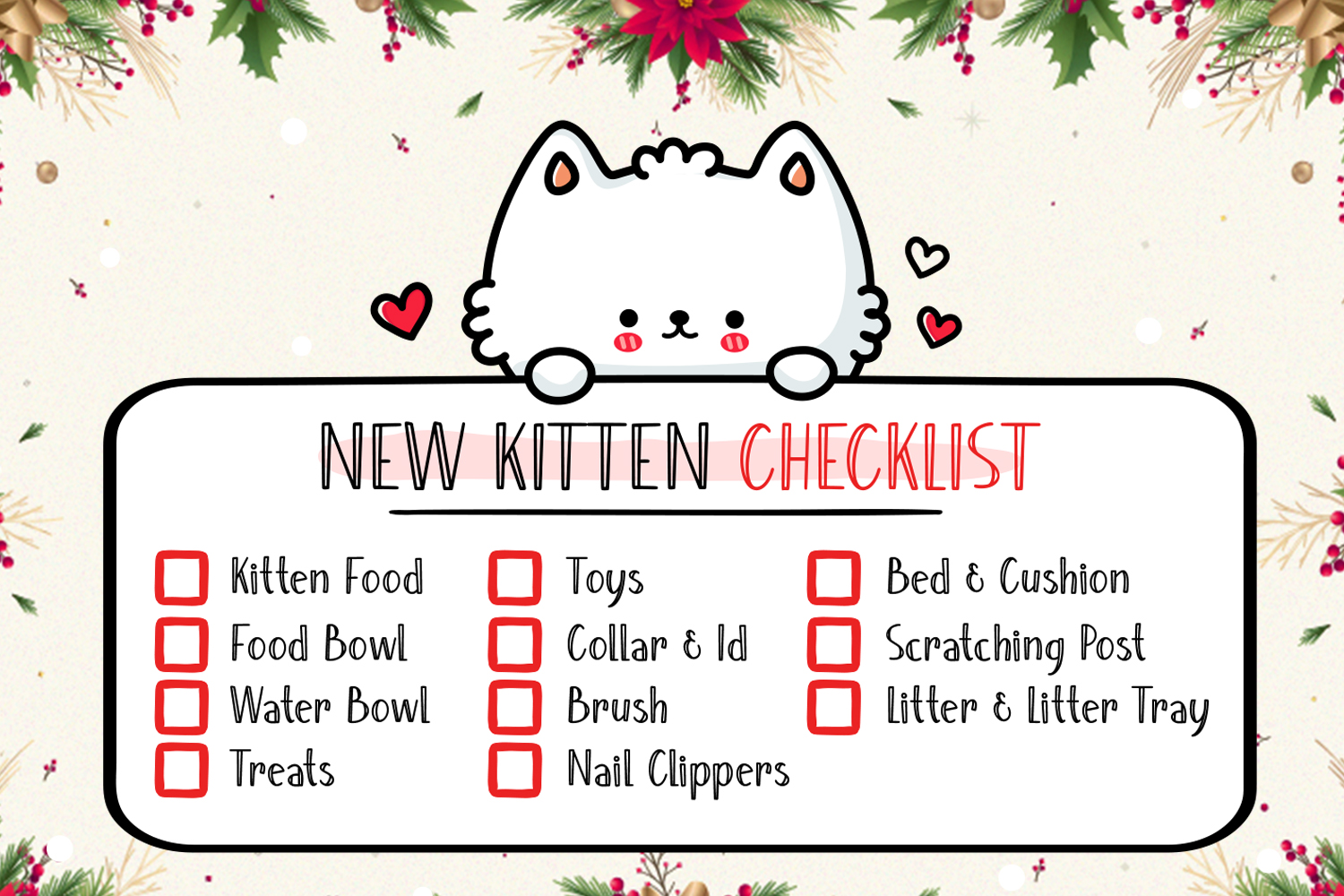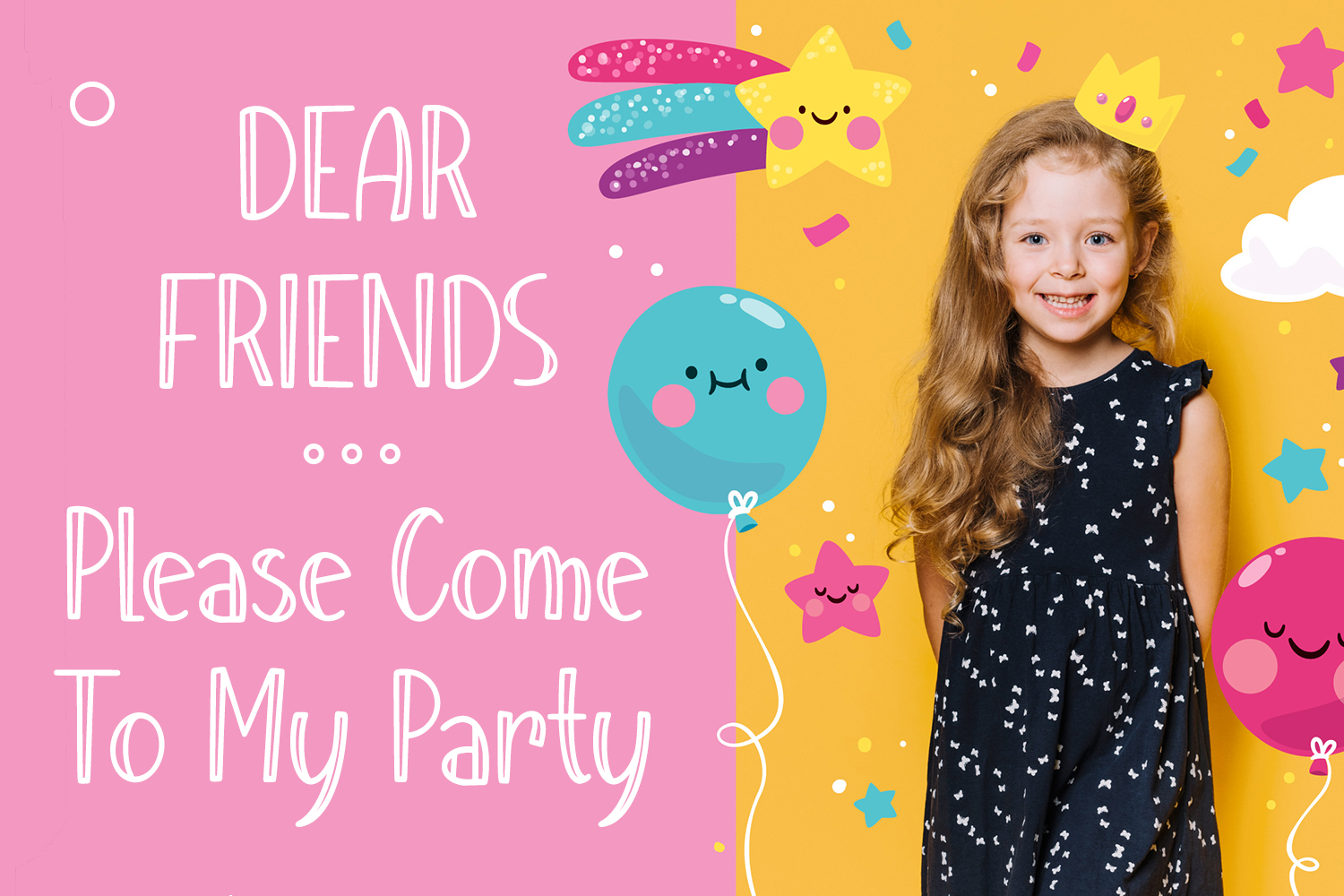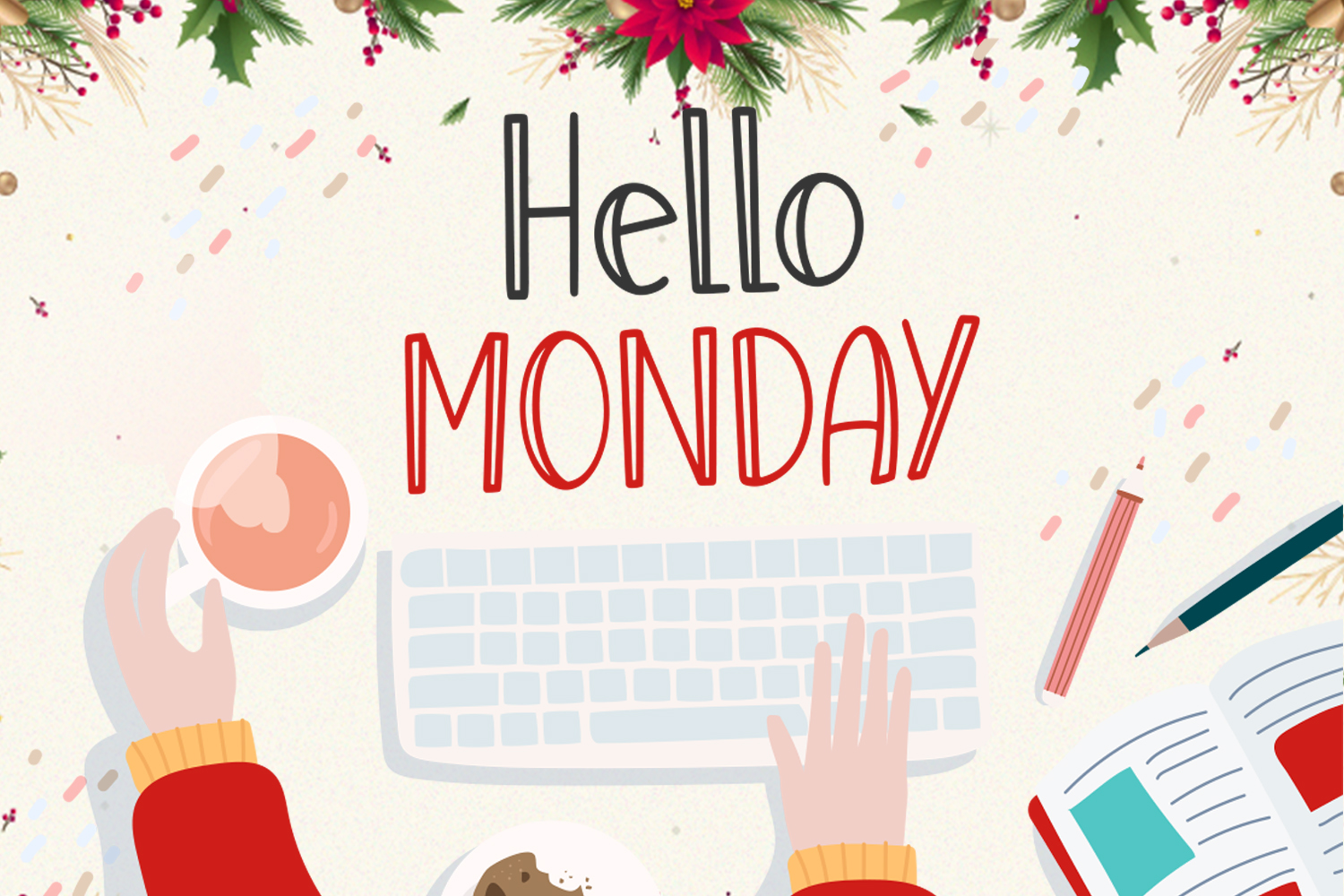
Perfect Christmas Font
Perfect Christmas Display Font
This is a handwritten font with cute and unique style. It will be perfectly used for Branding, Logo Design, Lettering, Logotype, Clothing, Poster, magazine, packaging, posters, shopping bags, t-shirts, book covers, photography, special events and other design project.